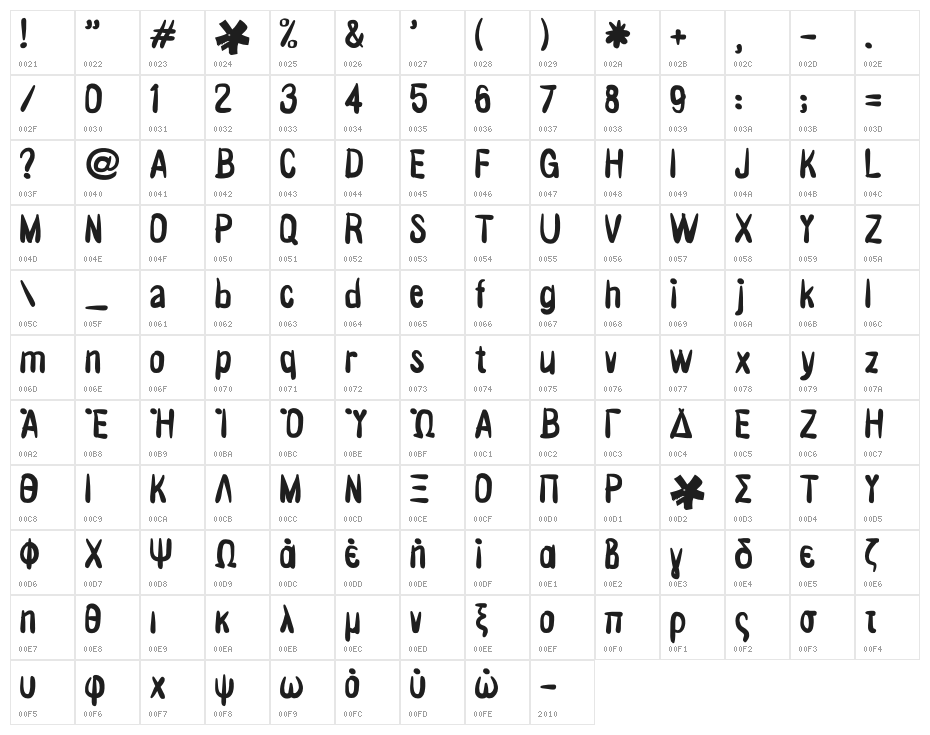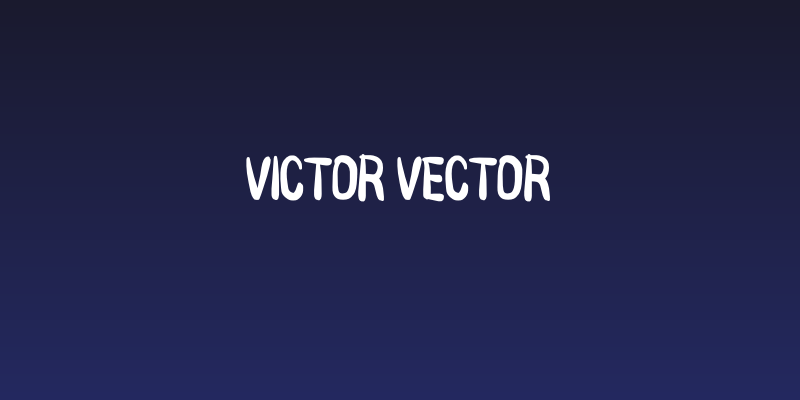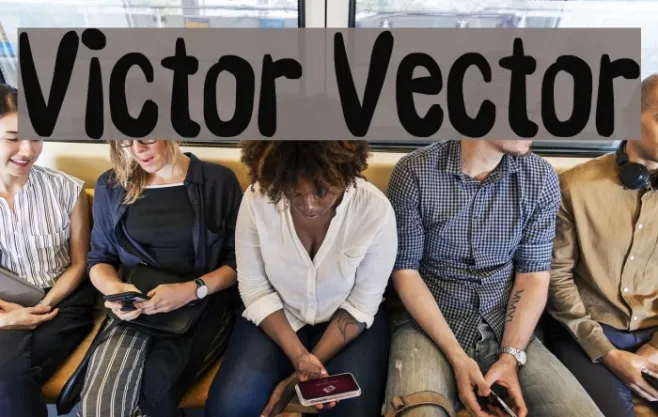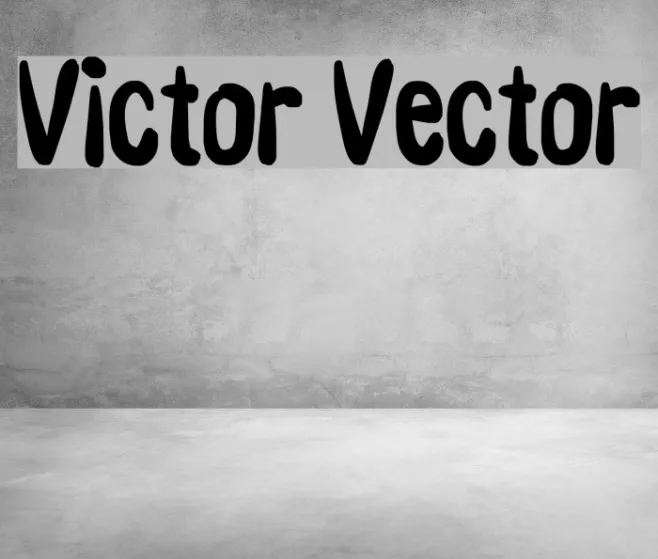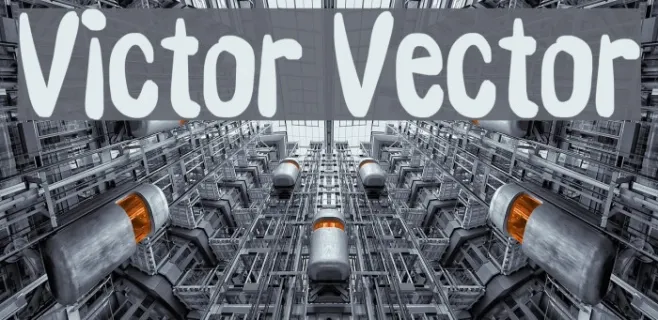
Victor Vector Font
Victor Vector Description
This font features a bold, playful style with a hand-drawn appearance. The characters are rounded and slightly irregular, giving it a whimsical and informal feel. The uppercase and lowercase letters maintain a consistent weight, contributing to a cohesive look. The numbers and special characters are designed to match the playful aesthetic, making them suitable for creative and casual projects. The overall design is approachable and friendly, with a unique charm that stands out.